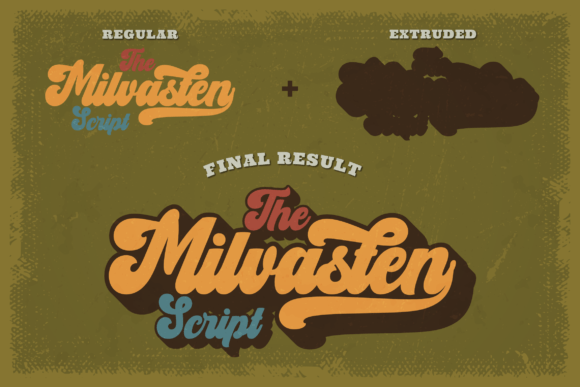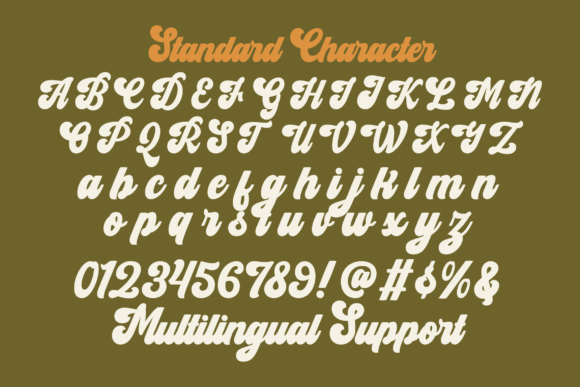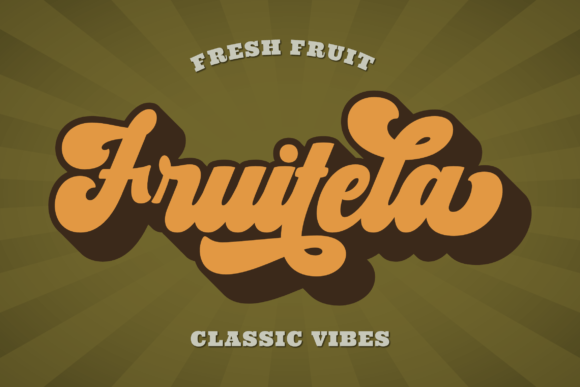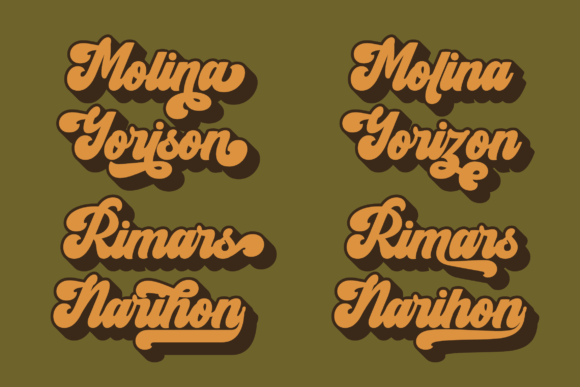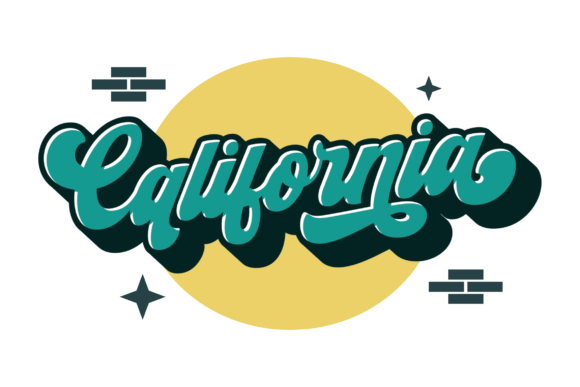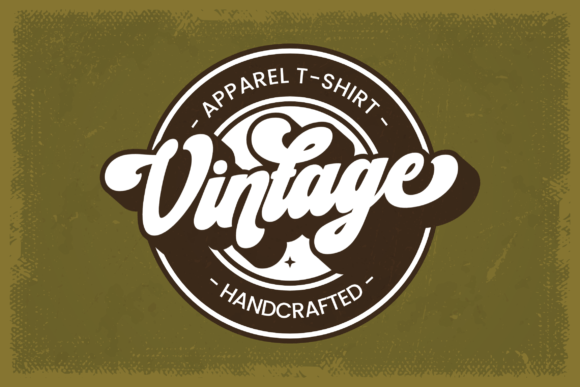
Introduction to Milvasten Font
Remember the thrill of finding the perfect font for your creative project? It’s like stumbling upon a hidden treasure that elevates your design from ordinary to extraordinary. For designers like you, having access to a high-quality font can be the difference between a good design and a great one.
Enter the Milvasten Font, a fun and retro-style script display font that’s ready to take your designs to the next level. Whether you’re working on a vintage-inspired poster, sticker, or social media post, this font is sure to impress your audience. And the best part? It’s free to download, making it an invaluable design resource for any creative project.
With its PUA encoded features, you can access all the glyphs and swashes with ease, allowing you to create unique and eye-catching designs with a transparent background. The Milvasten Font is a valuable addition to any designer’s toolkit, and we can’t wait to see how you’ll use it to bring your creative vision to life.
Key Features of Milvasten Font
- High-quality, professional font design ideal for creative projects and design resources.
- Features a transparent background, allowing for seamless integration into designs and creative projects.
- Designed with a unique, modern aesthetic, making it a standout choice for designers seeking a distinctive look.
- Available in a range of sizes and resolutions, including 72 dpi and 300 dpi, to accommodate various design needs.
- Part of a larger collection of high-quality fonts, offering designers a wealth of options for their creative projects.
Honest Review: Milvasten Font
I recently stumbled upon the Milvasten Font, and I must say it’s a fantastic addition to any designer’s library. This beautiful font is perfect for creative projects that require a touch of elegance and sophistication. It’s a high-quality design resource that’s free to download, making it an excellent choice for designers on a budget.
One of the things that stands out about the Milvasten Font is its versatility. It can be used for a wide range of applications, from headings and titles to body text and even logos. The font comes in a transparent background option, which makes it easy to customize and pair with other design elements.
- High-quality design with a sophisticated feel
- Free to download, making it an excellent choice for designers on a budget
- Transparent background option for easy customization
- Perfect for creative projects that require elegance and sophistication
However, I did encounter a few limitations: ⚠️
- The font may not be suitable for very large or small text sizes
- The transparent background option may not work well with certain design elements
Overall, I’m thoroughly impressed with the Milvasten Font. It’s a fantastic design resource that’s sure to elevate any creative project. With its high-quality design, versatility, and free download option, it’s an excellent choice for designers of all levels.
Common Use Cases for Milvasten Font
The Milvasten Font is perfect for a variety of creative projects, including logos, branding materials, social media graphics, and more. Its high-quality design and transparent background make it an ideal choice for any design resource.